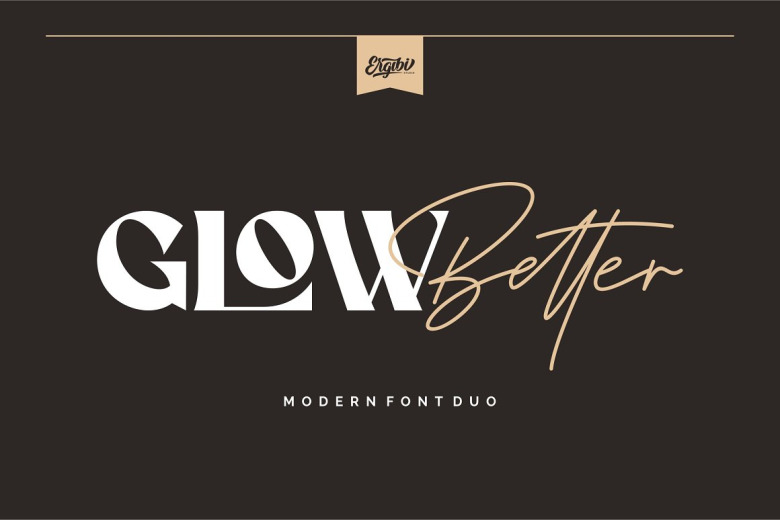
Glow Better Font
Glow Better Modern Duo Fonts is the perfect selection for this. There are two types, I am going to start with Display Serif inspired by a well known logo, This typeface is just designed so carefully to make sure its premium quality and luxury feels.
The serif ligature makes this typeface stunning for stands out rather than the normal serif font, it is perfectly used for headlines, glamorous wedding, social media, company’s logo, posters, luxury packaging, T-shirts, coffee shop and restaurant, magazine’s header, sophisticated sign or merchandise and glamour gift cards.
Glow Better Font Duo